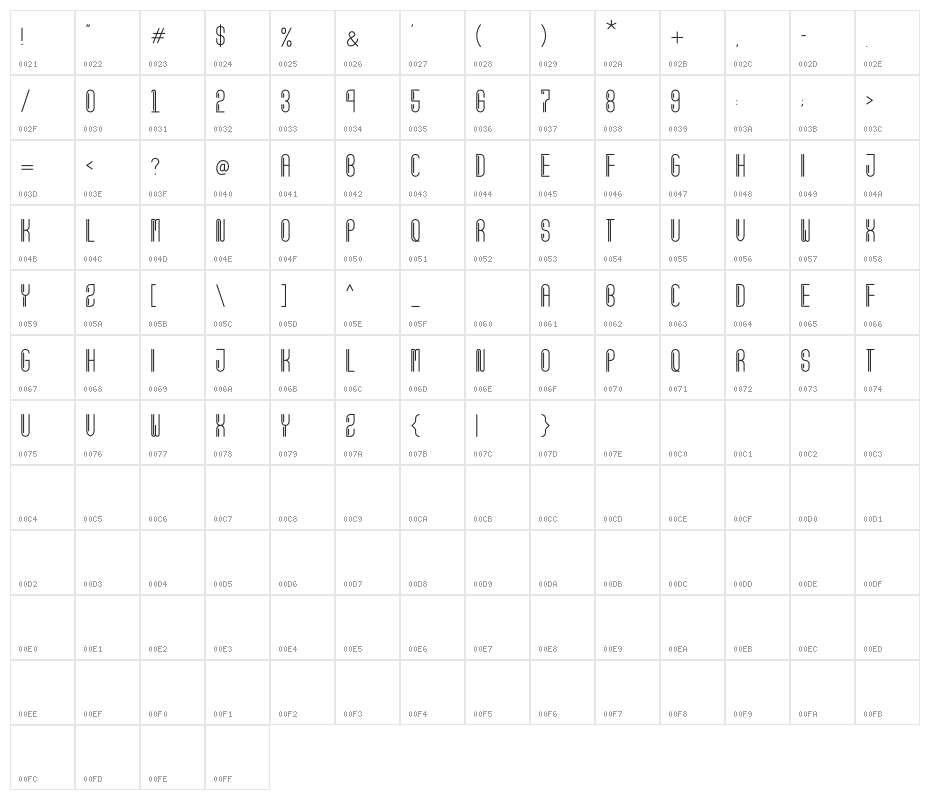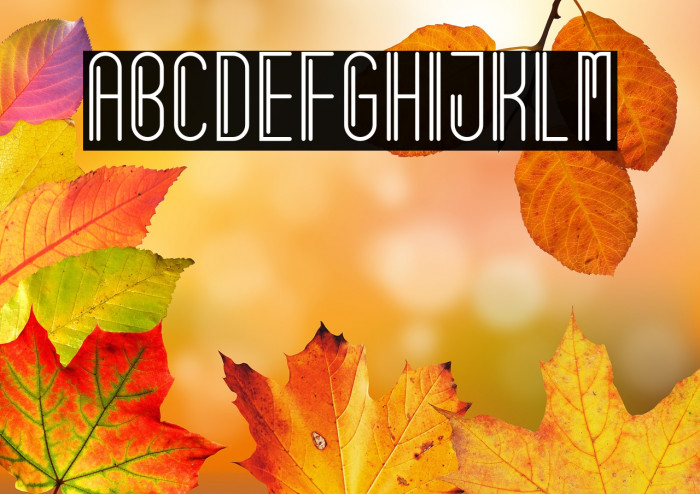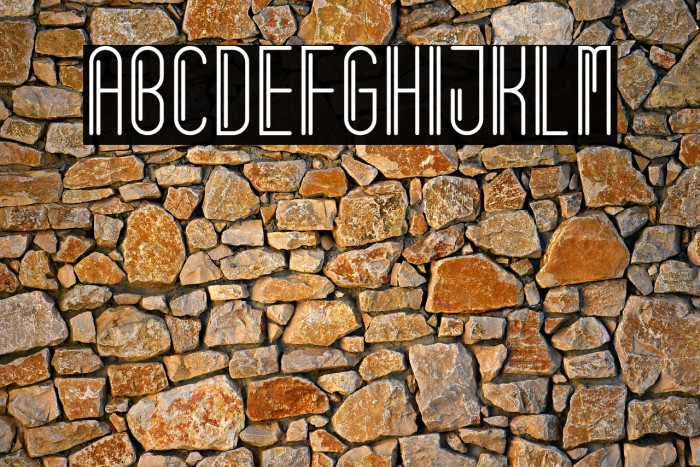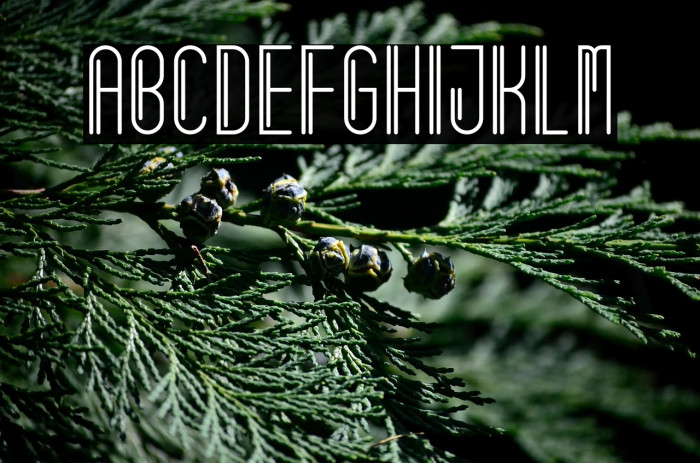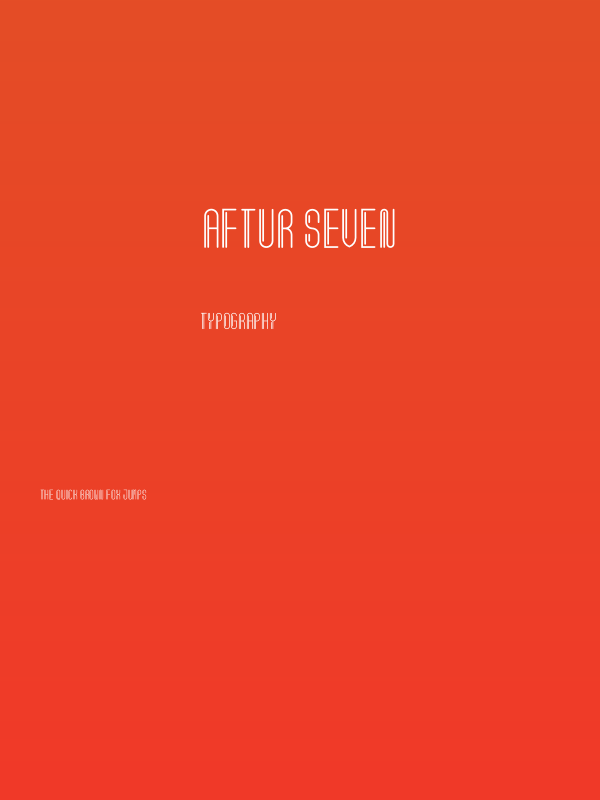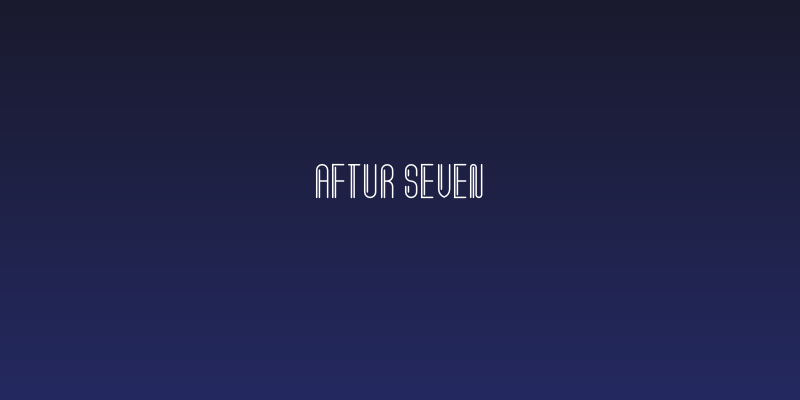
Aftur Seven Font
Aftur Seven Description
This font features a modern, geometric design with elongated letterforms and a distinctively narrow appearance. The characters are constructed with clean, straight lines and subtle curves, giving it a sleek and contemporary look. The uppercase and lowercase letters maintain a consistent height, contributing to its uniformity and elegance. The numbers and special characters follow the same design principles, ensuring a cohesive visual style across all glyphs. This font's unique style makes it stand out, ideal for projects that require a modern and sophisticated touch.
| Proposed Projects | Ideal for branding, logos, posters, and editorial design where a modern and sleek aesthetic is desired. |